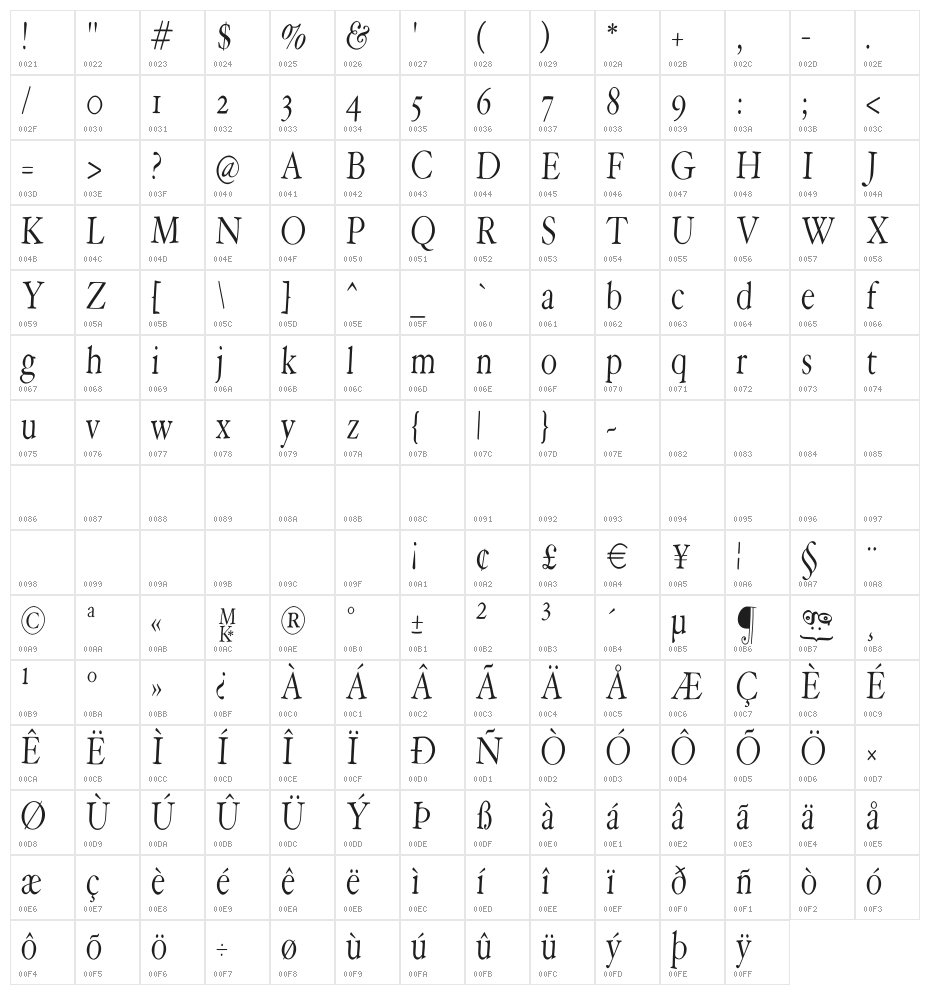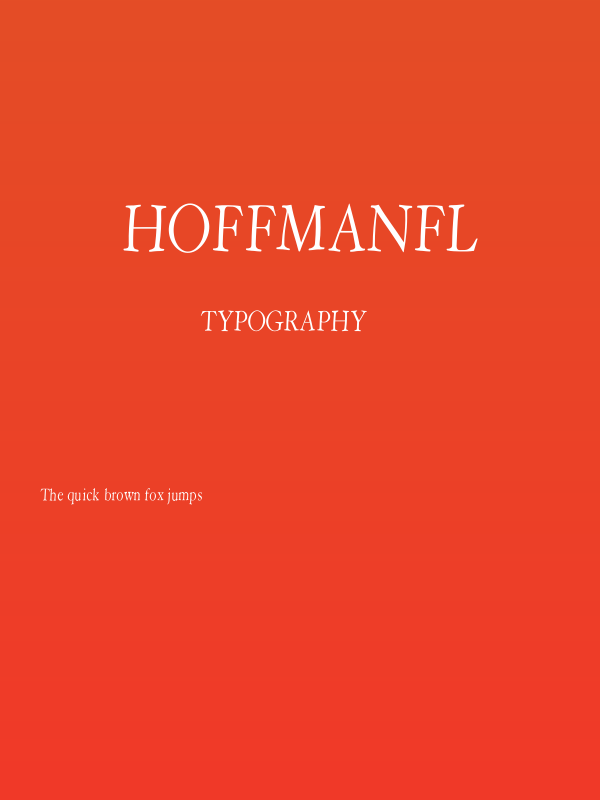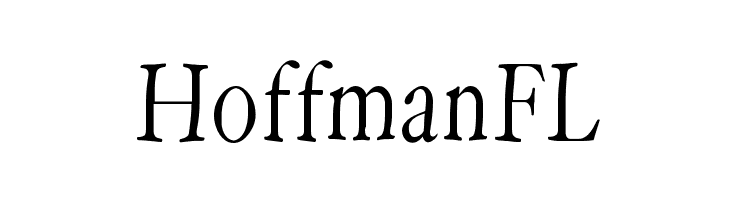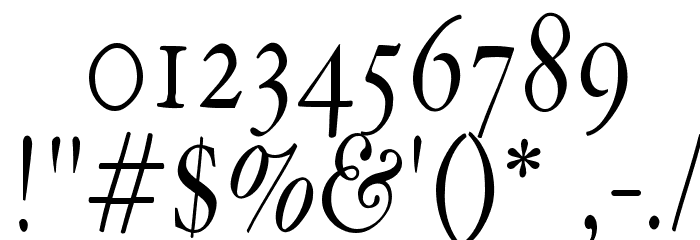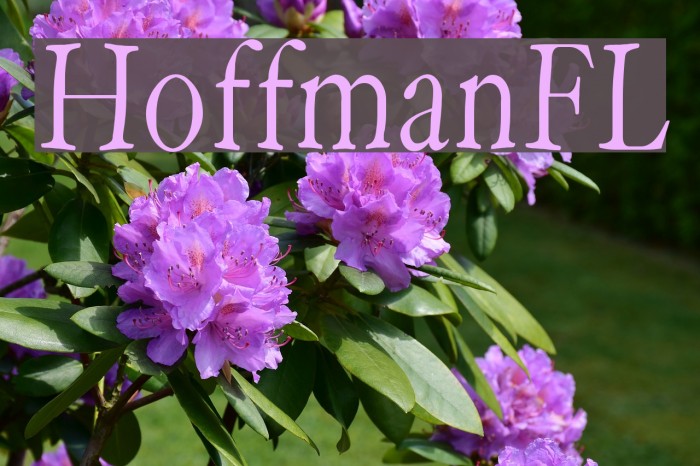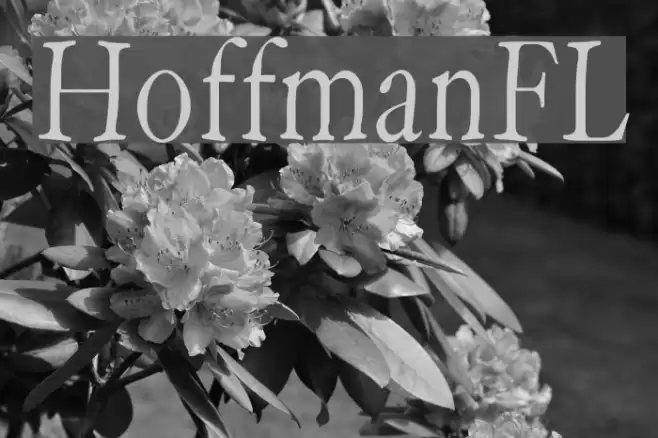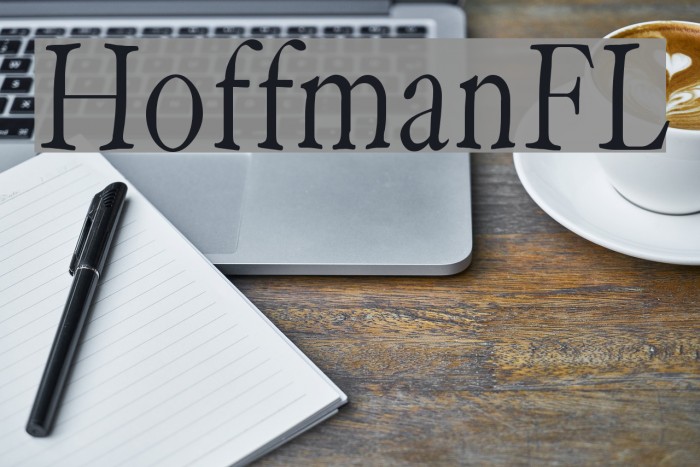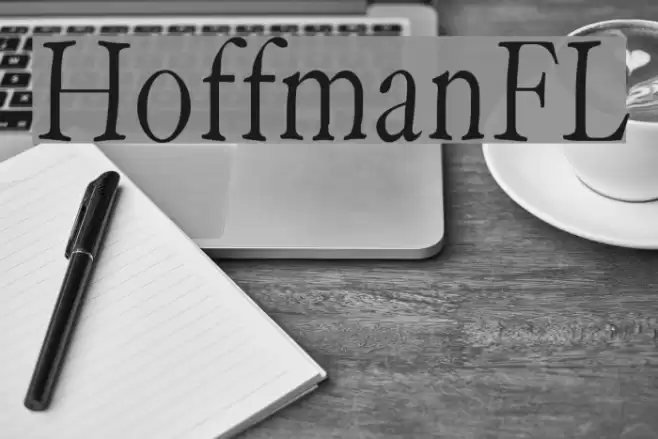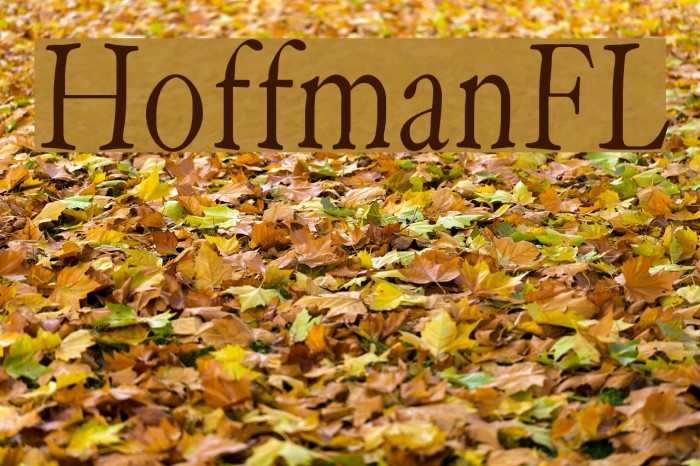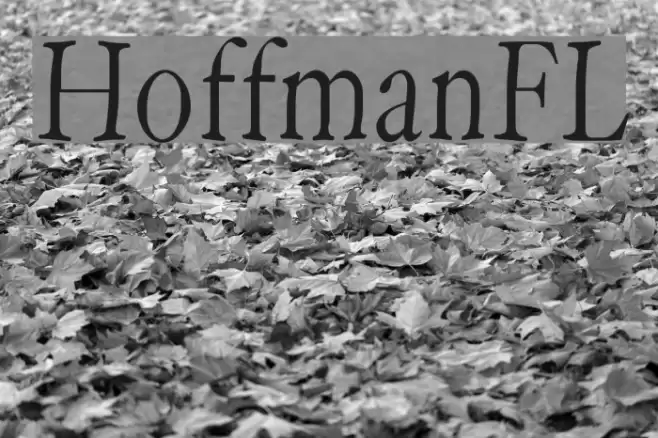
HoffmanFL Font
HoffmanFL Description
This font features a classic serif style with elegant, flowing lines and a sophisticated appearance. The uppercase letters are tall and stately, with pronounced serifs that add a touch of formality. The lowercase letters maintain a consistent style, with smooth curves and a slightly narrow stance. Numbers are well-proportioned, complementing the overall aesthetic. Special characters are designed with the same attention to detail, ensuring a cohesive look across all glyphs. The font's contrast in stroke thickness adds a dynamic quality, making it suitable for both traditional and modern applications.
| Overall Style | Classic |
| Use Case | Headlines, Body text, Logos |
| Proposed Projects | This font is perfect for projects that require a touch of elegance and sophistication, such as wedding invitations, formal event programs, luxury brand logos, and editorial design. |